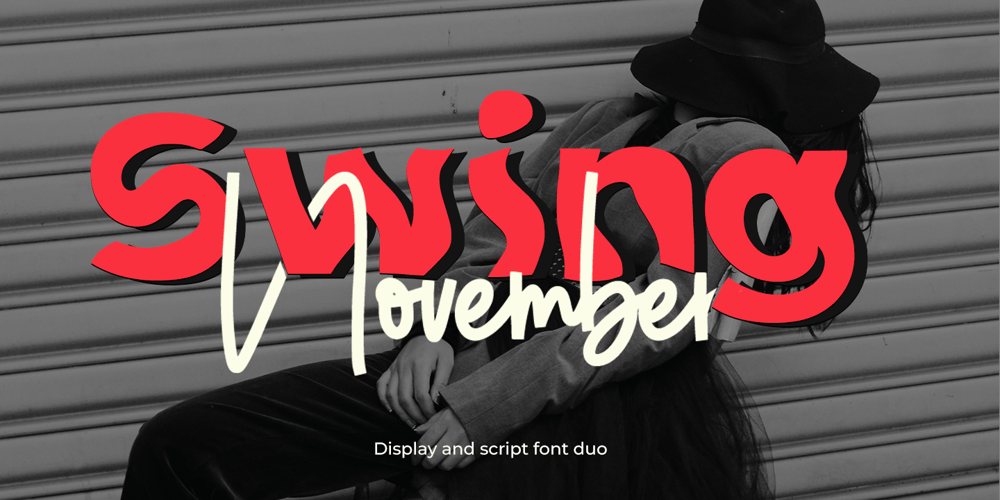
November Swing Duo
November Swing Duo font
November Swing Duo Font Family was designed by Muhammad Zaini and published by Cocodesign. November Swing Duo contains 2 styles and family package options. Introducing Swing November – an adorable and effervescent duo font that epitomizes modern charm and amusement. With an effortlessly attractive aesthetic, Swing November promises to be the perfect addition to your design repertoire. Whether used in unison or individually, this font brings an irresistible appeal to a variety of themes. From effervescent children’s events, engaging school projects, festive holiday decor, celebratory birthday invites, sun-soaked summer designs, to trendy t-shirt graphics, sentimental crafting projects, standout stickers, and vibrant sublimation designs – Swing November’s versatility will add that much-needed playful touch to numerous creations. It’s not just a font, it’s an immediate upgrade to your design aesthetic. Welcome the world with Swing November font duo – where cuteness meets style!